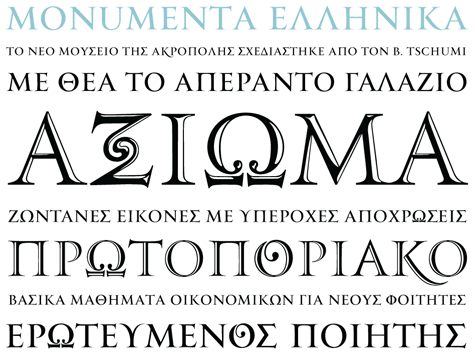
Greek Font Inspired by Roman Column
Monumenta Pro is a serif titling face available as Latin, Cyrillic, and Greek alphabets. It comes with interesting alternates for each language.
Greek type foundry Parachute has released Monumenta Pro, a titling face influenced by Trajan (the column, not necessarily the typeface). The letters are based on Roman and Greek characters carved on stone.
Monumenta's Normal and Shaded styles are designed to have serifs with a finer thinning. The Metallic style is bolder and simulates in the most realistic way three-dimensional metallic lettering. As a set, they cost $185.
Monumenta includes alternate characters placed at lowercase positions as well as a few stylistic alternates, which are accessed through the OpenType features.